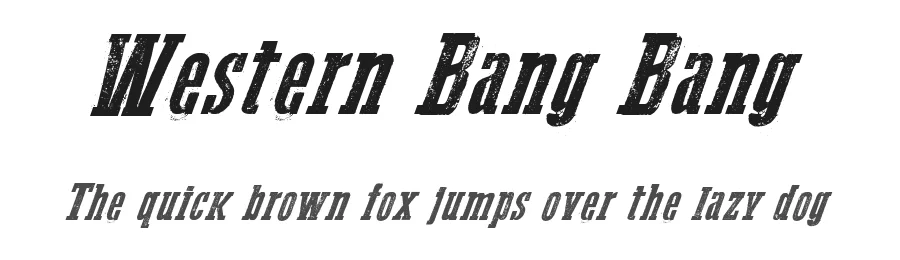
About Western Bang Bang Clean Font
Western Bang Bang Clean is an italic decorative font designed by Galdino Otten Fonts, bringing bold Western character and fancy styling to display projects that demand attention. With 235 glyphs and support for over 217 Latin-based languages, this typeface is built for designers and crafters working across diverse global markets while maintaining its distinctive personality and visual presence.
The italic styling combined with its decorative nature makes this font particularly suited for creative applications where personality matters. Consider it for Western-themed poster designs and signage, elaborate wedding invitation headlines that need drama, Etsy shop banners with a rustic-fancy aesthetic, and specialty branding projects demanding bold character. Craft-focused applications benefit exceptionally from this fancy character set: think custom t-shirt designs for country or Western themes, decorative scrapbook titles and layouts, vinyl decal projects for Cricut machines, and hand-lettered signage where impact is key.
Western Bang Bang Clean Font is a decorative font that shines as a display or heading face. Pair it with a clean sans-serif or serif font for body text β the contrast creates a clear hierarchy while the two styles stay balanced and easy to read.